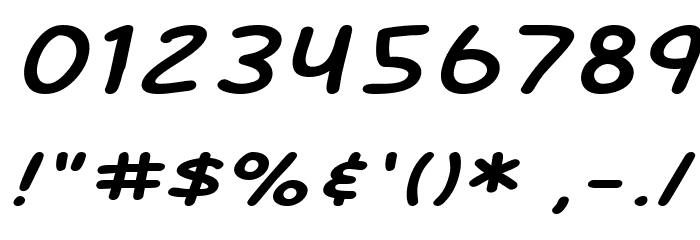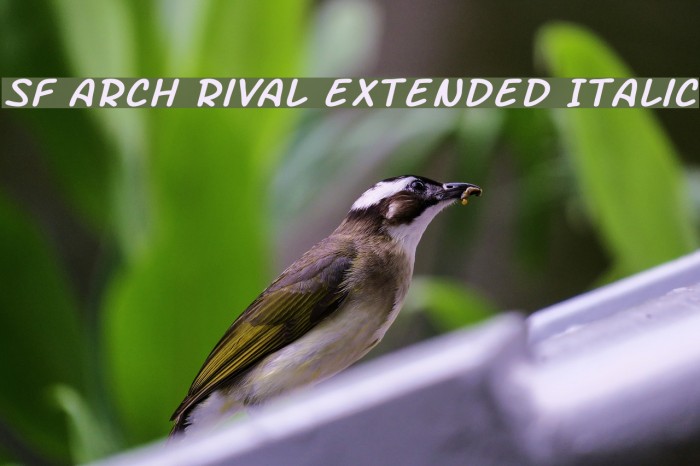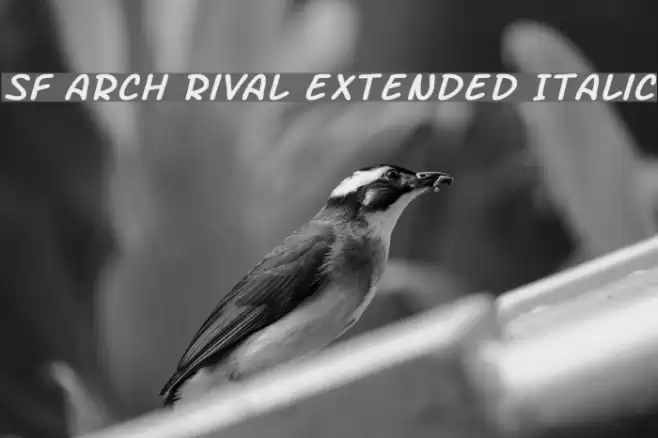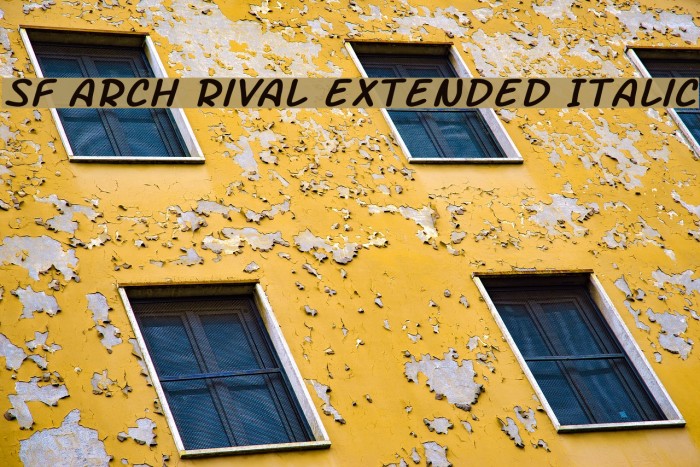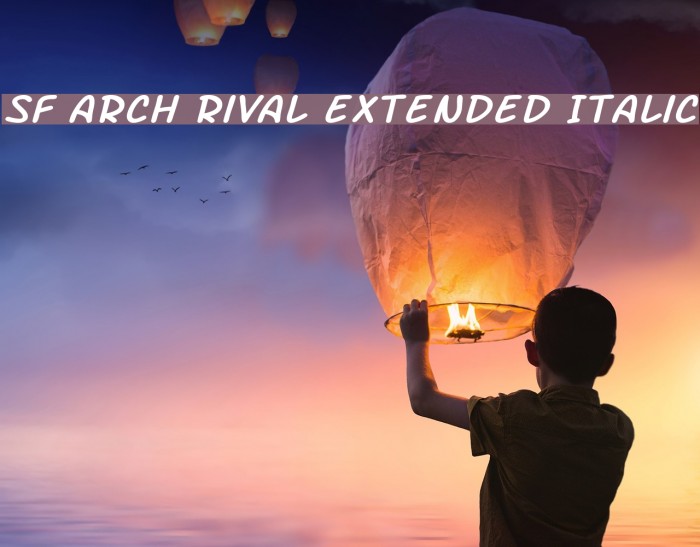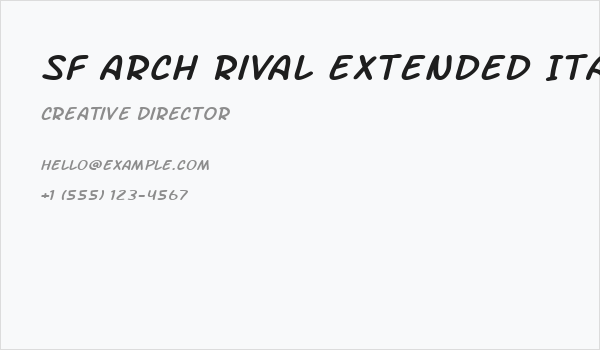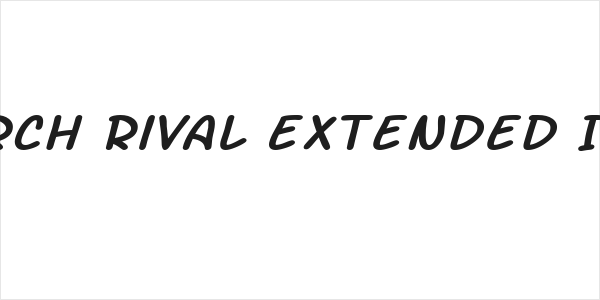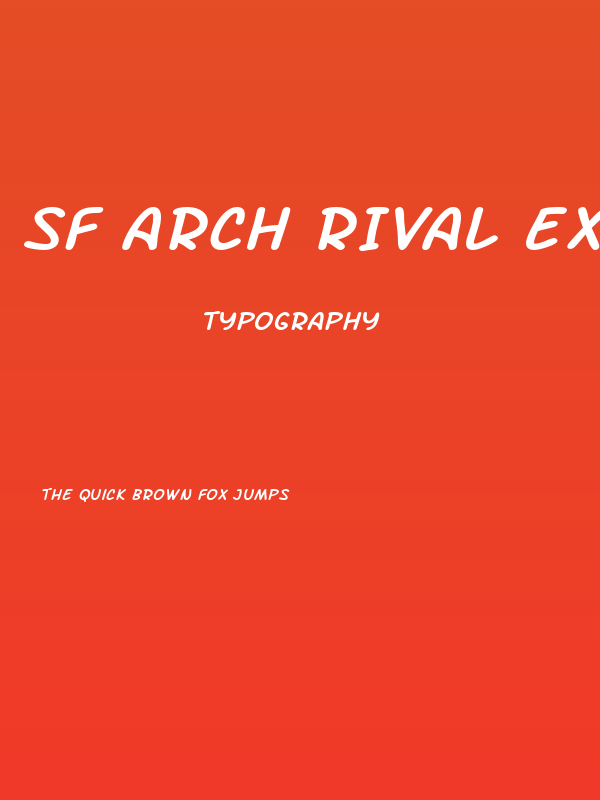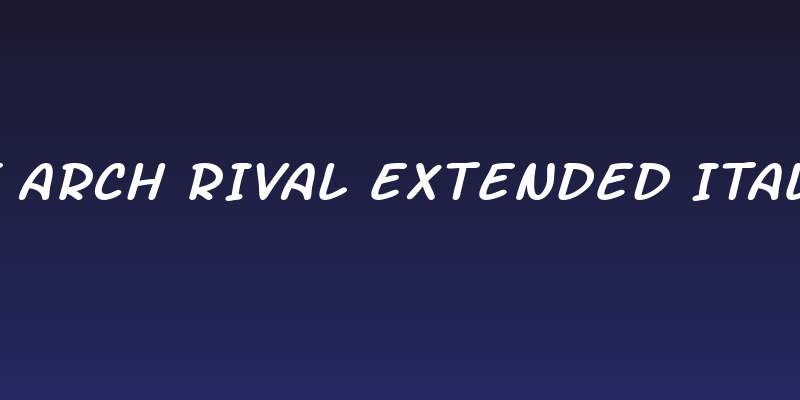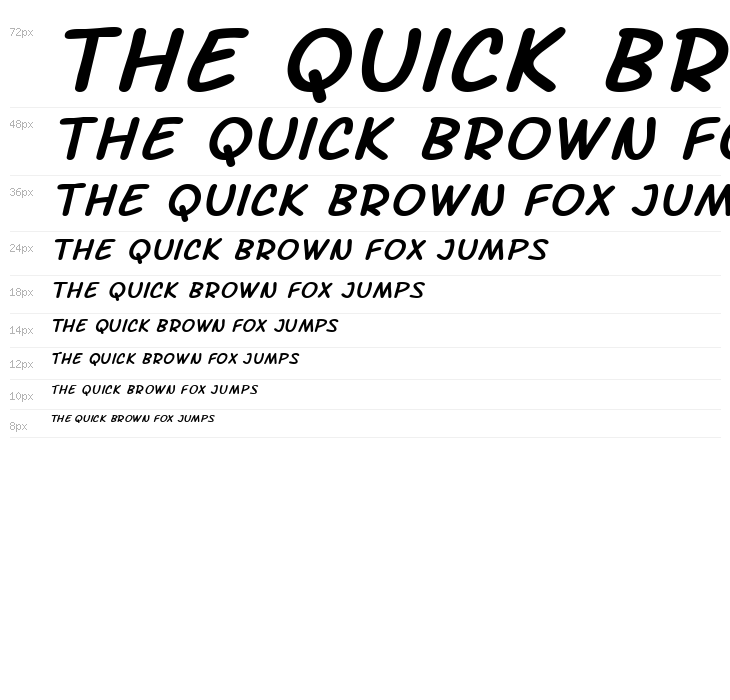
SF Arch Rival Extended Italic Font
SF Arch Rival Extended Italic Description
This font features a playful and dynamic style with a handwritten appearance. The characters are slightly slanted, giving it an italicized look, and the strokes are smooth and rounded, adding to its casual and friendly feel. The letters are evenly spaced, maintaining readability while conveying a sense of movement. The font includes both uppercase and lowercase letters, numbers, and a variety of special characters, making it versatile for different uses. Its bold and extended form enhances its visibility, making it suitable for eye-catching designs.
| Proposed Projects | Ideal for greeting cards, playful branding, children's books, and casual invitations. |